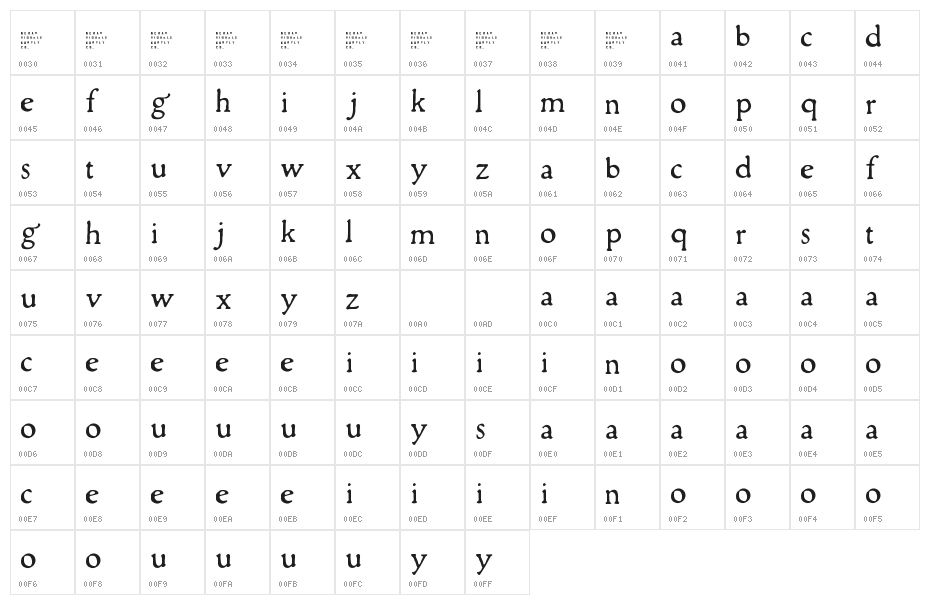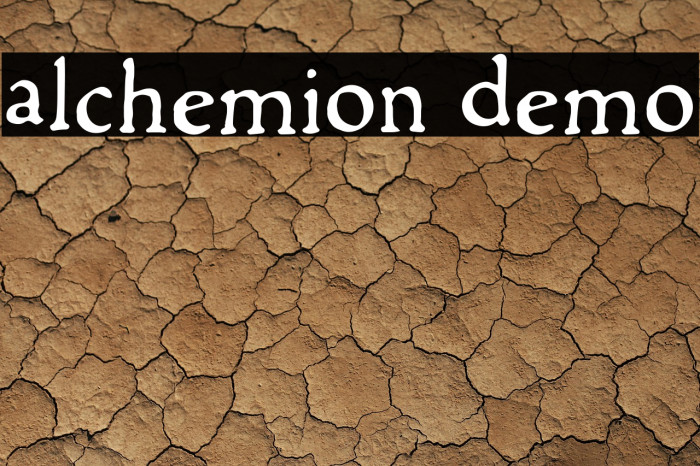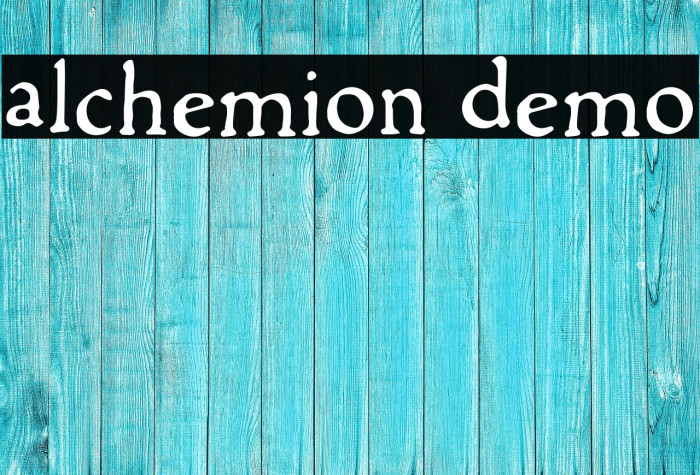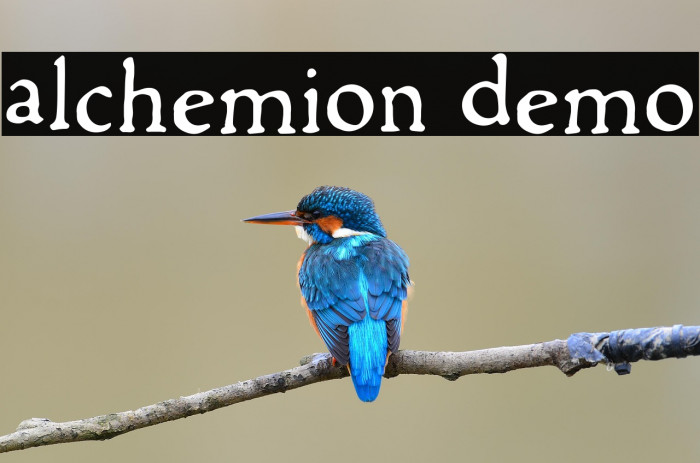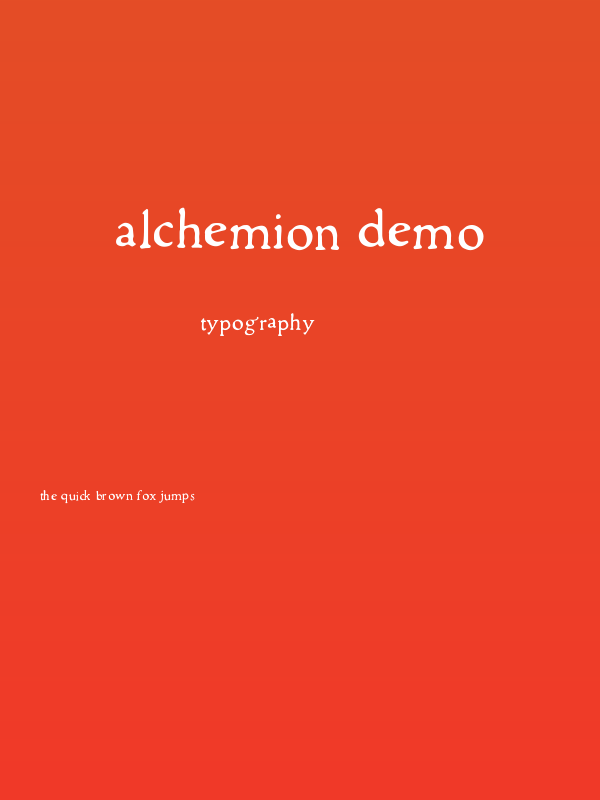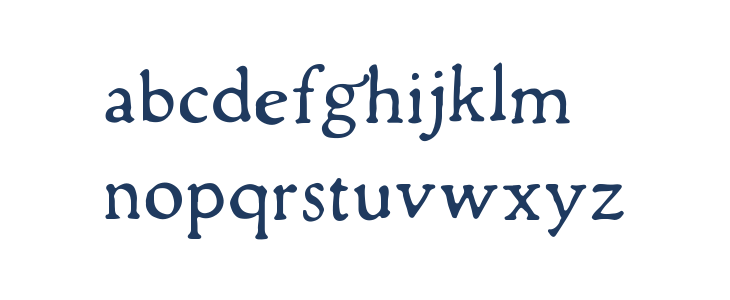
Alchemion Demo Font
Alchemion Demo Description
This font features a unique blend of classic and modern elements, characterized by its slightly irregular and organic letterforms. The strokes are varied, with some letters having a more pronounced thickness, giving it a hand-crafted appearance. The serifs are subtle yet distinct, adding a touch of elegance and sophistication. The overall design is reminiscent of historical scripts but with a contemporary twist, making it versatile for various design applications. The font maintains a consistent baseline, ensuring readability while offering a distinctive style that stands out.